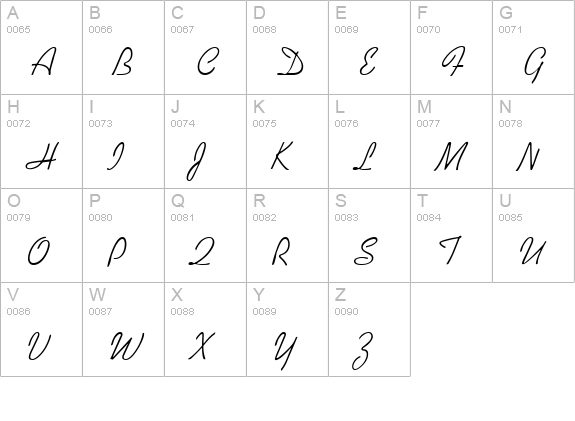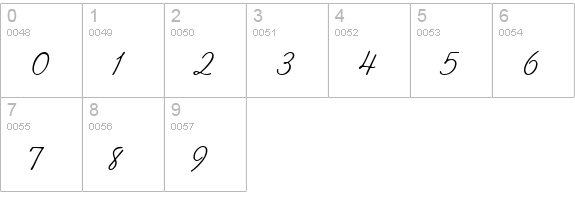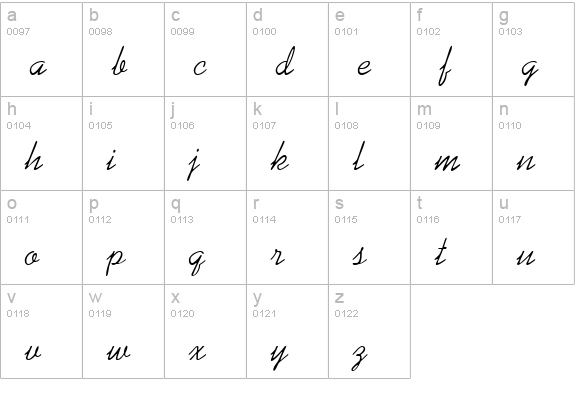
Kaufmann Regular is the standard, neutral variant in the Kaufmann typeface family \xE2\x80\x94 well suited to general body text, paragraphs, and standard typographic work.
Kaufmann Regular is a beautiful and versatile font that effortlessly combines classic elegance with a modern twist. With its clean lines and balanced proportions, this font is perfect for a wide range of design projects, from branding and packaging to editorial and web design. This font features a timeless appeal, making it suitable for both traditional and contemporary designs. Its smooth curves and distinct letterforms create a sense of sophistication and professionalism. Whether used for headlines, body text, or decorative elements, Kaufmann Regular adds a touch of refinement to any composition. One of the best things about Kaufmann Regular is that it is available free of charge. Yes, you heard it right! This incredible font is freely available to download at FontsMarket.com. Now you can enhance your creative projects without spending a dime. The accessibility and affordability of Kaufmann Regular make it a must-have for designers and typographers alike. When you choose Kaufmann Regular, you are not only getting a high-quality font, but you are also joining a community of like-minded individuals who appreciate the beauty of typography. This font is loved and used by designers all around the world, and its popularity continues to grow. So, why wait? Discover the endless possibilities of Kaufmann Regular and elevate your designs to new heights. Download it for free at FontsMarket.com and unleash your creativity today!